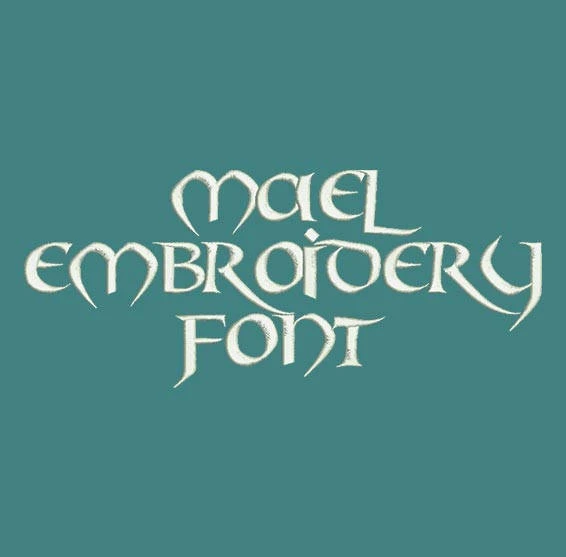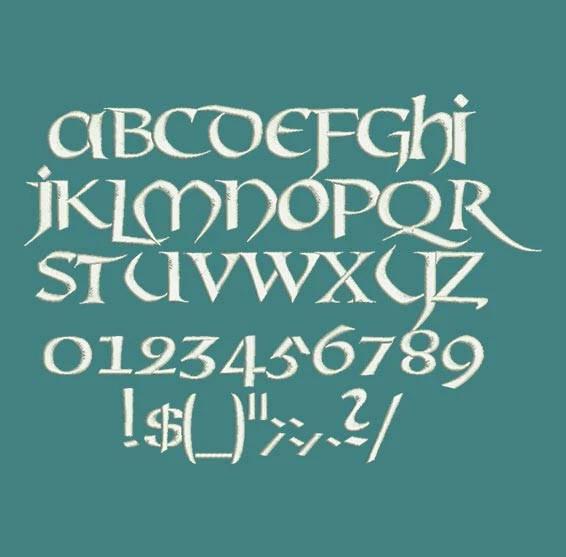
Title: Mael Machine Embroidery Font
This Mael font is perfect for personalizing clothes, bags, towels and linens!
This beautiful font would look amazing as a Monogram on Totes, School bags and purses!